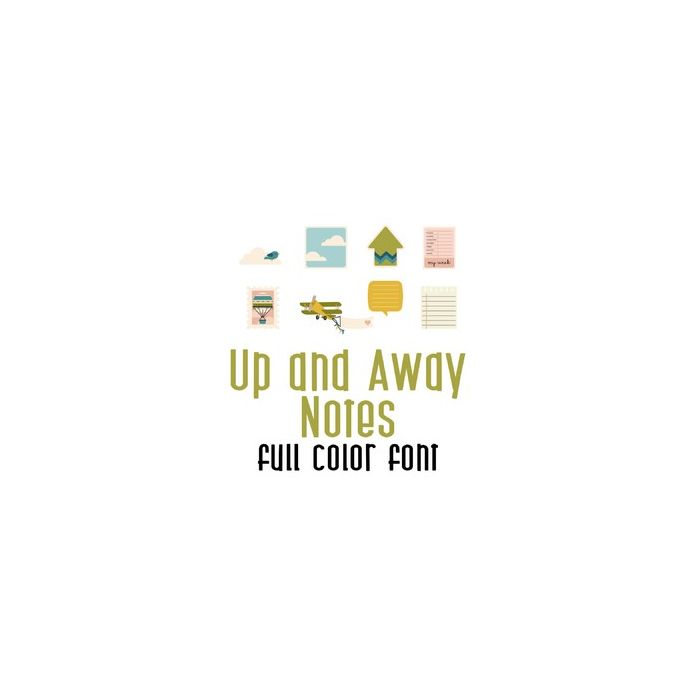
This adorable full color doodlebat font features fun journaling items, notes, planner pieces and more! Perfect for cards, crafts, gifts, decor, scrap book pages, planner stickers and more!